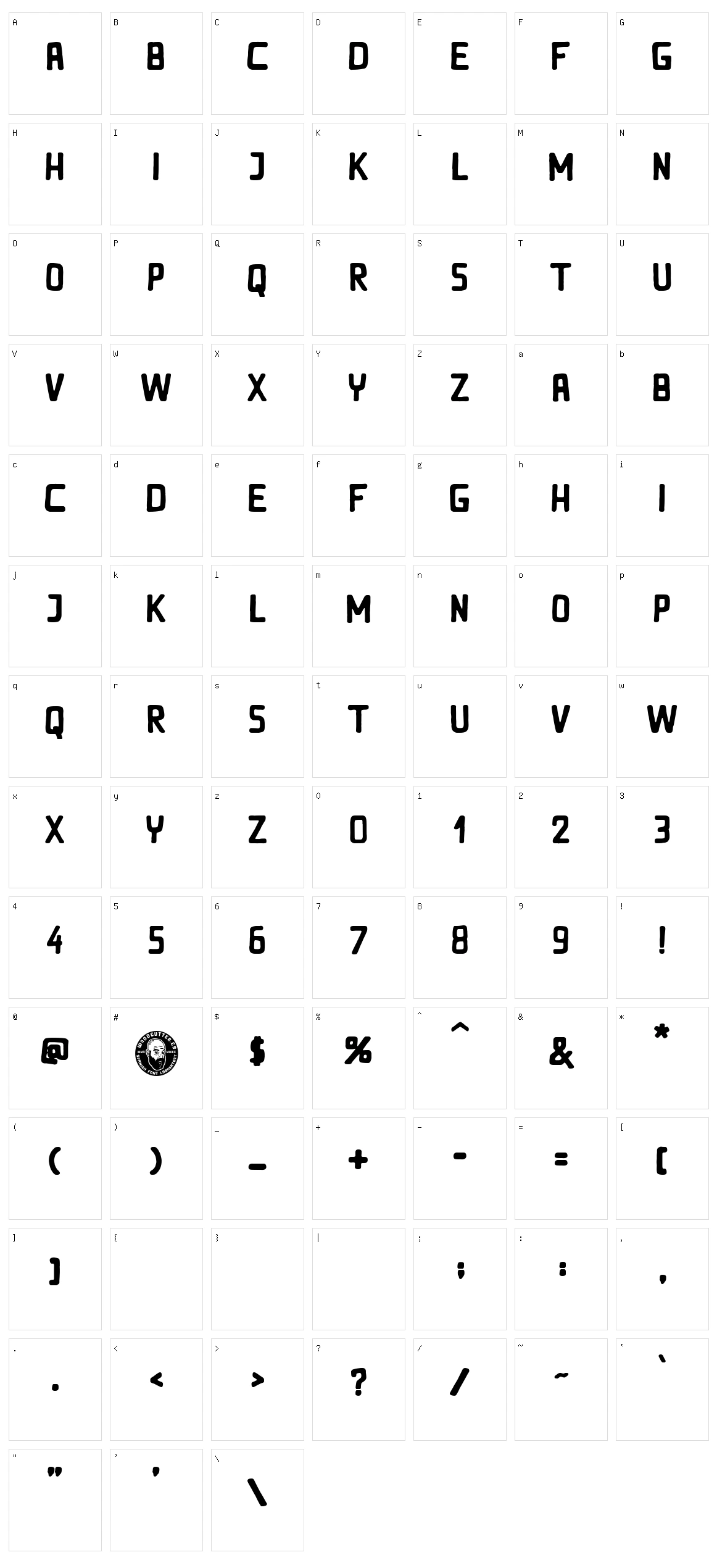
The free font Rocking Bunny is carefully designed by Woodcutter, showcasing a thoughtful balance of creativity and usability and falls under the Cartoon font style. When you download the ZIP file, it contains only 63.7 KB of font files, making it lightweight and quick to download. Please review the license details below to understand permitted usage and distribution rights. If license information is not available, we recommend using this font for personal projects only or contacting the author directly for commercial usage permissions.